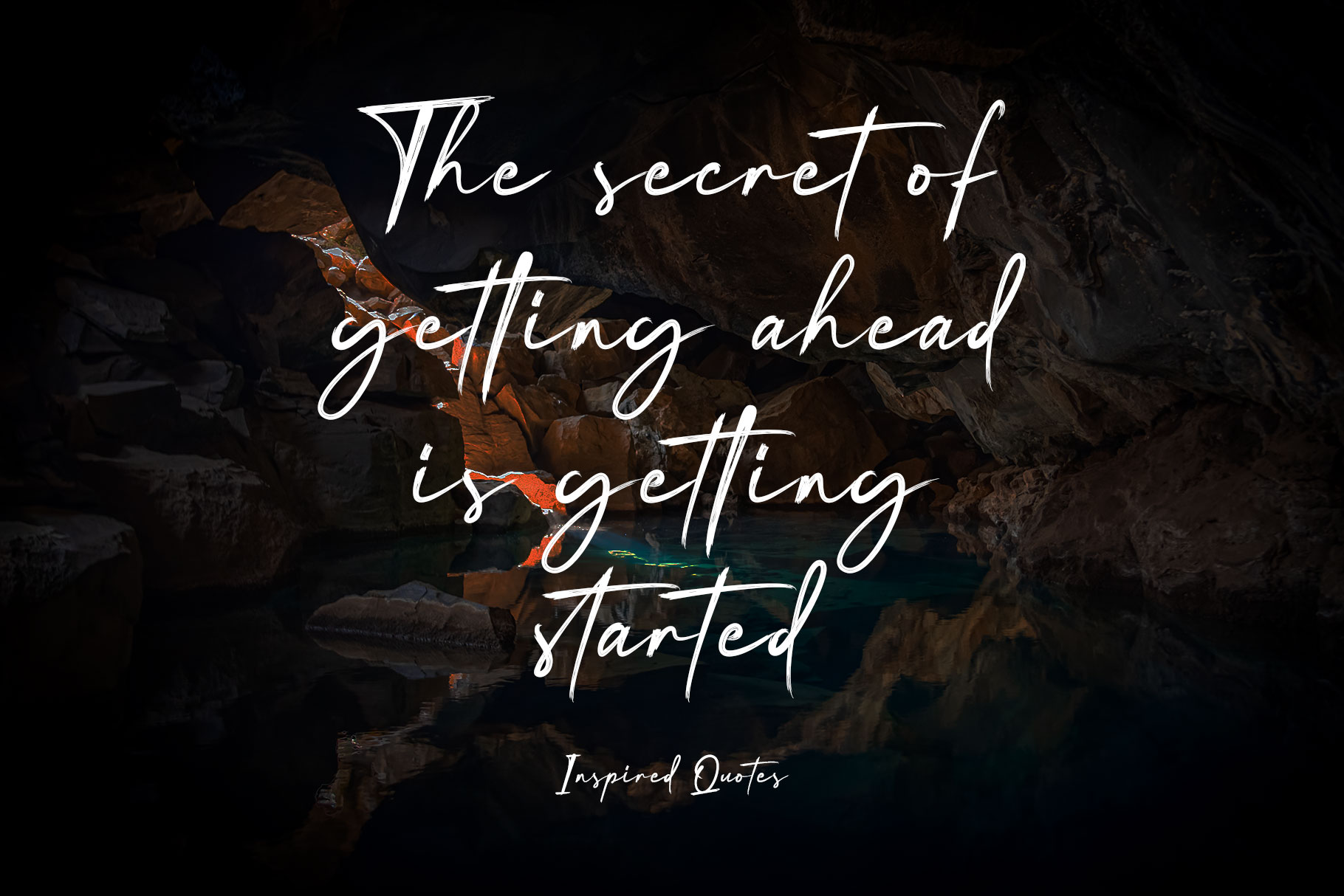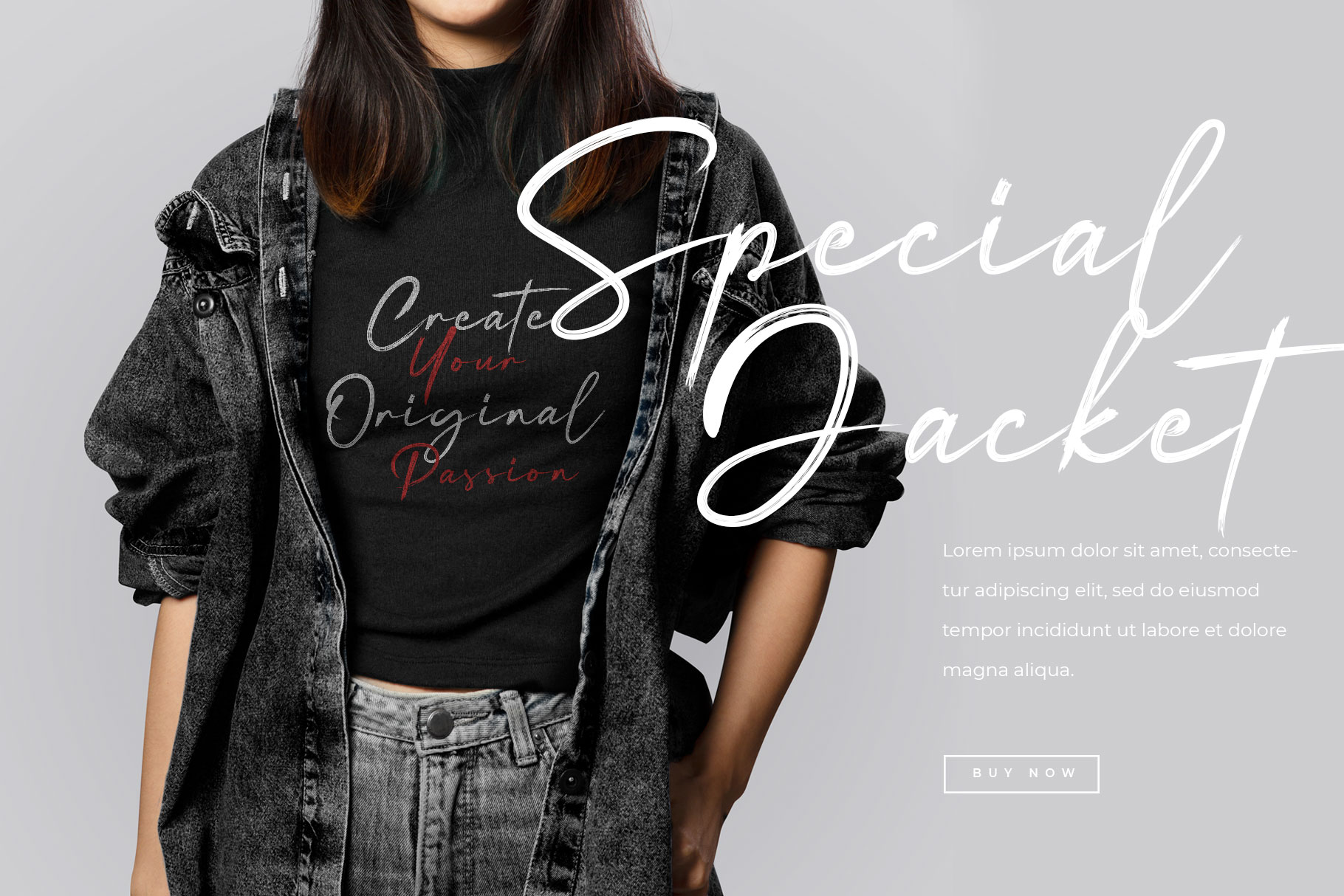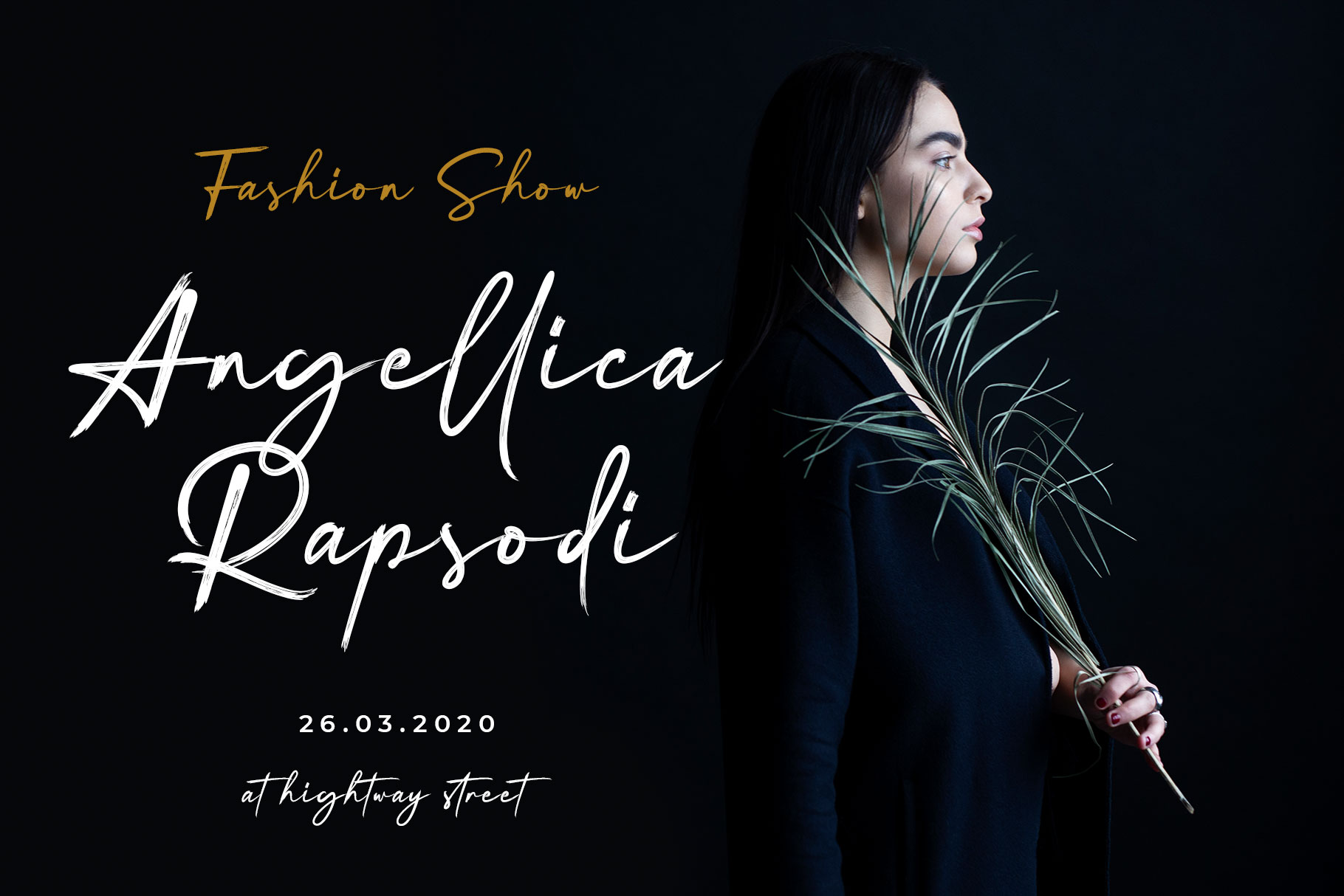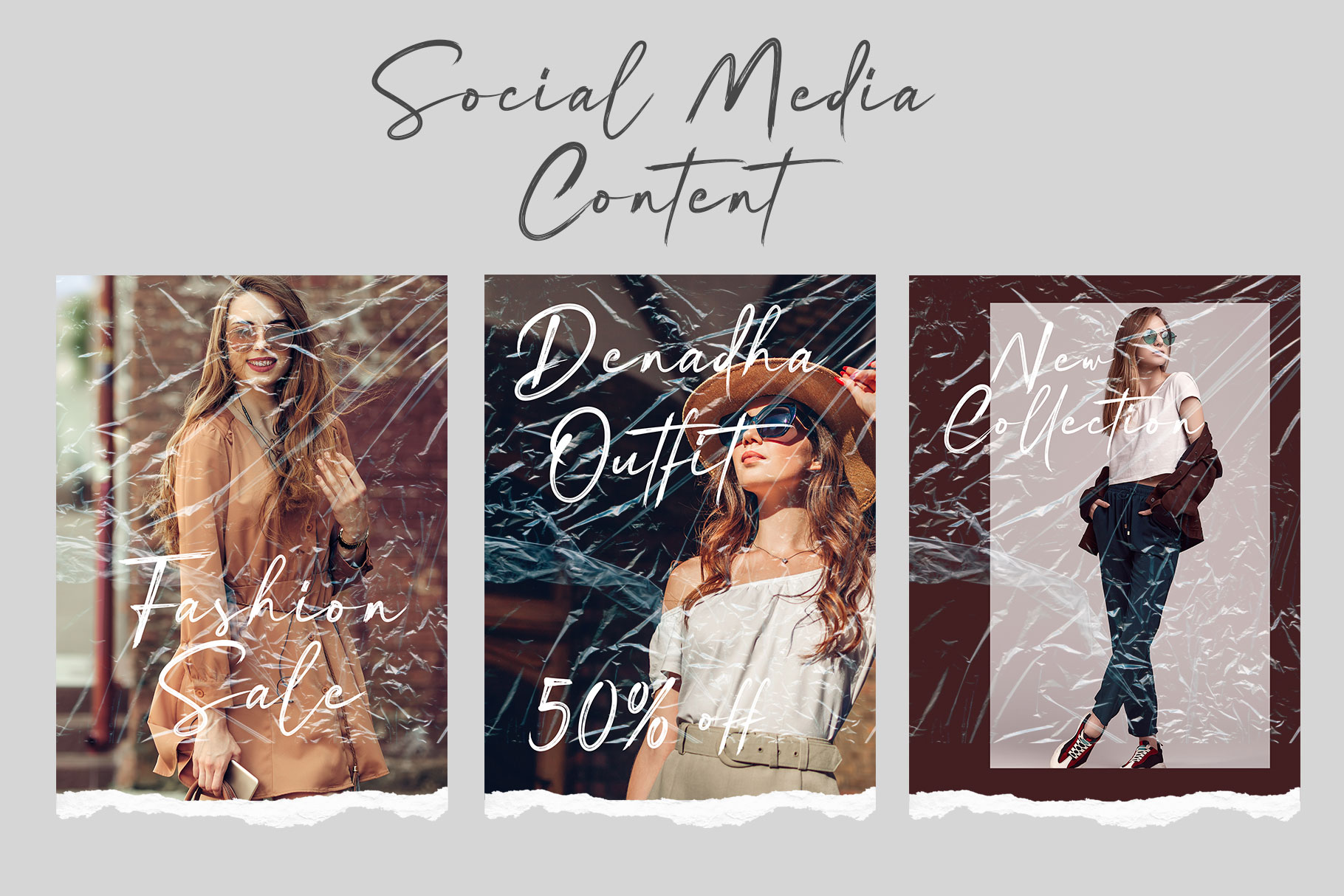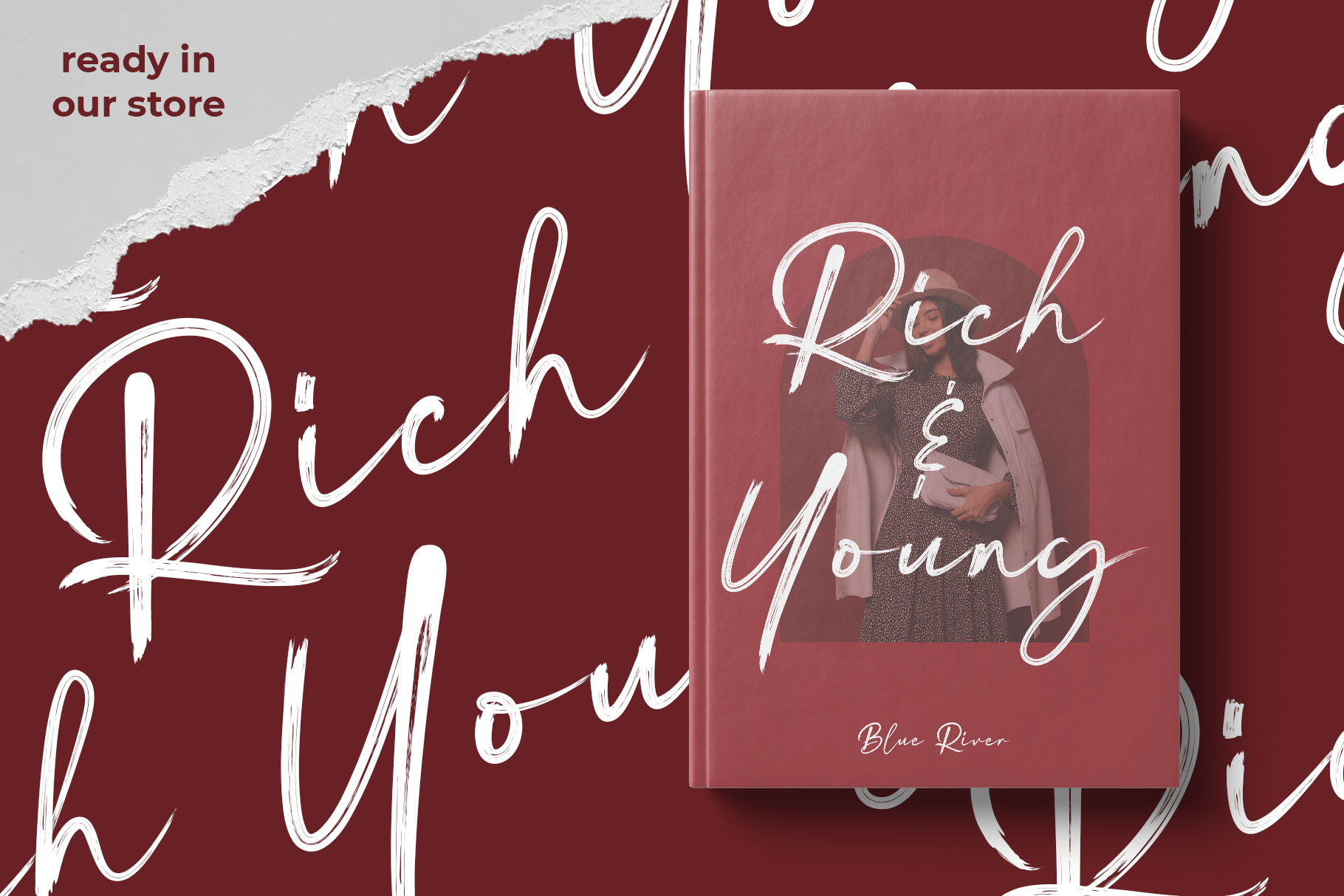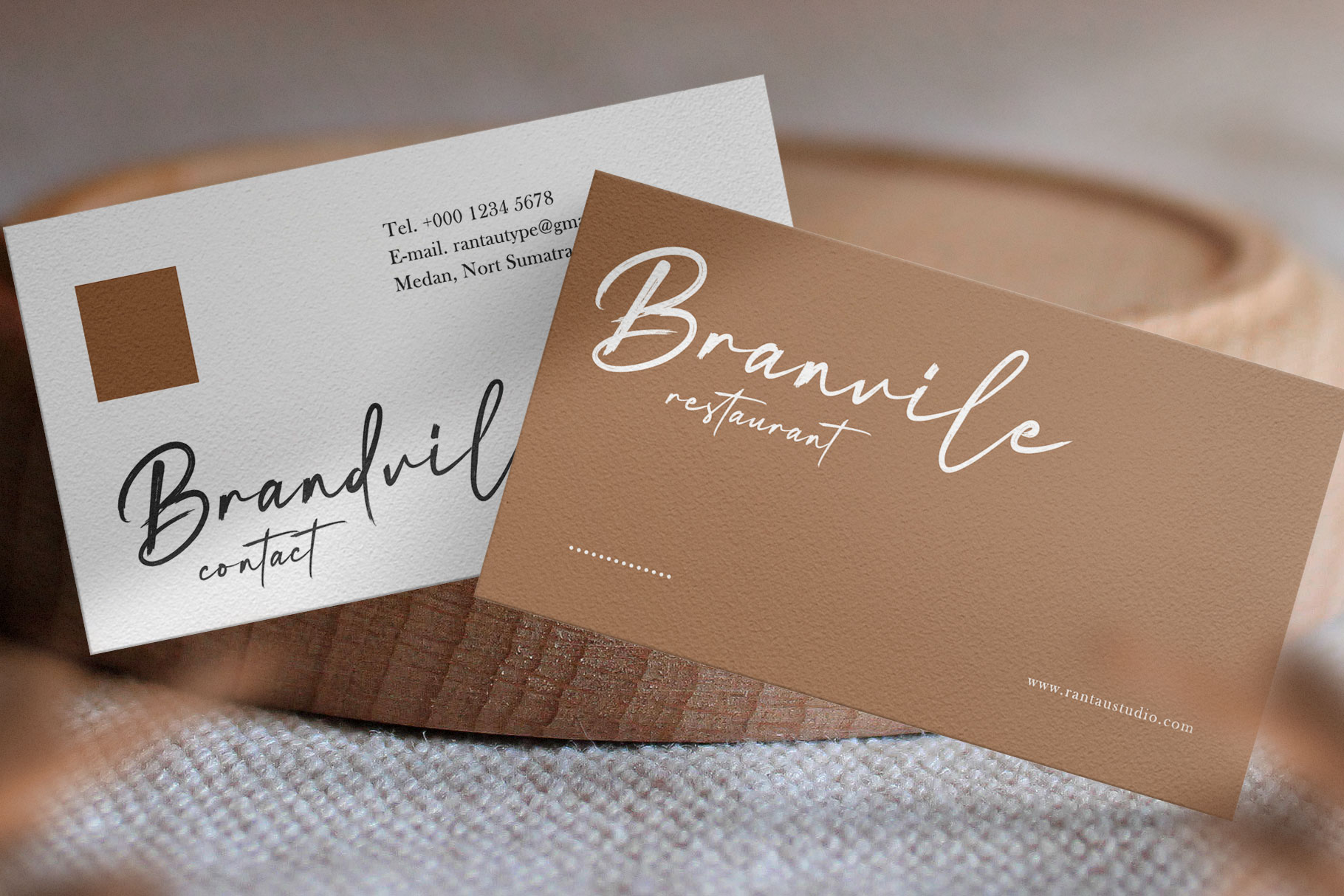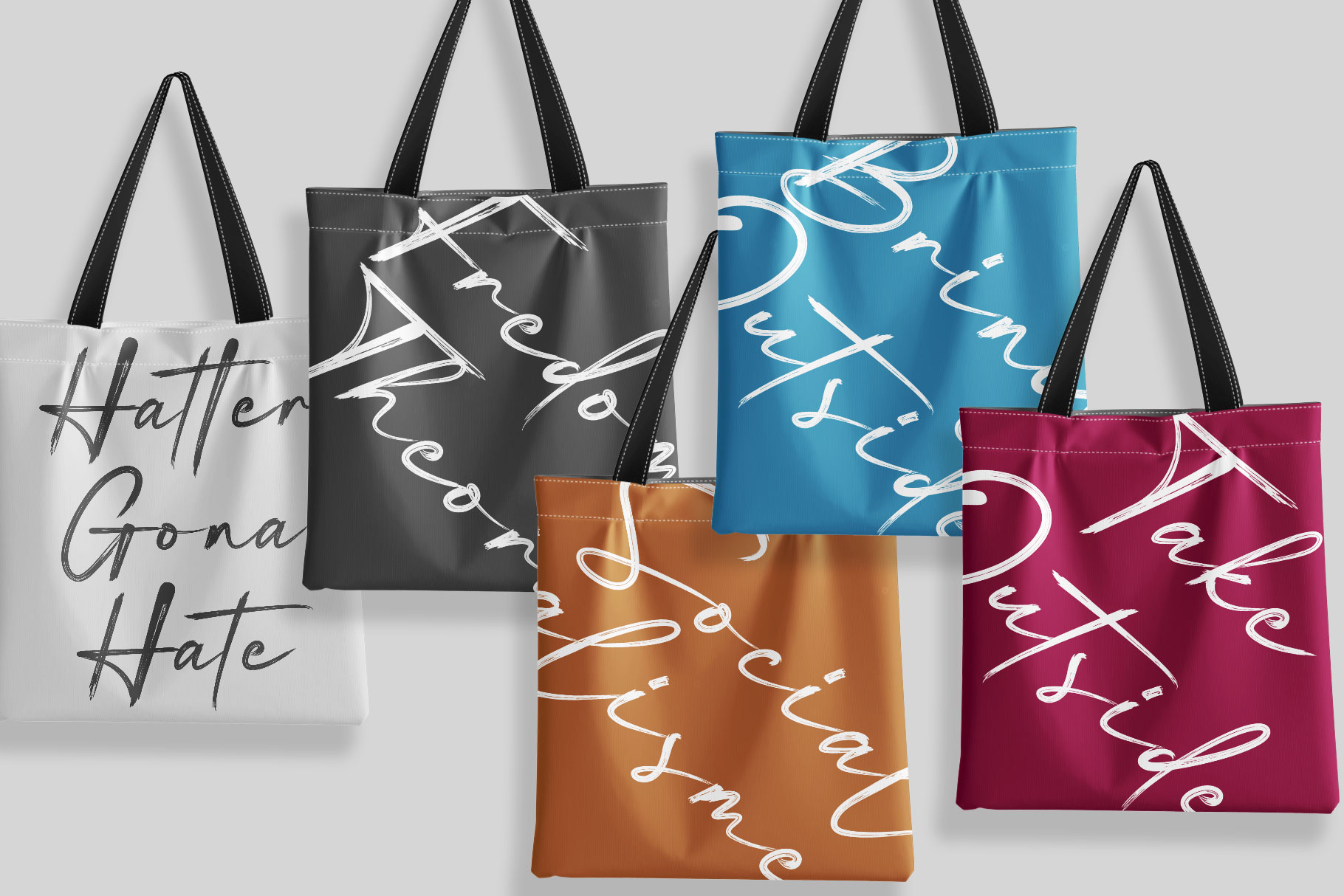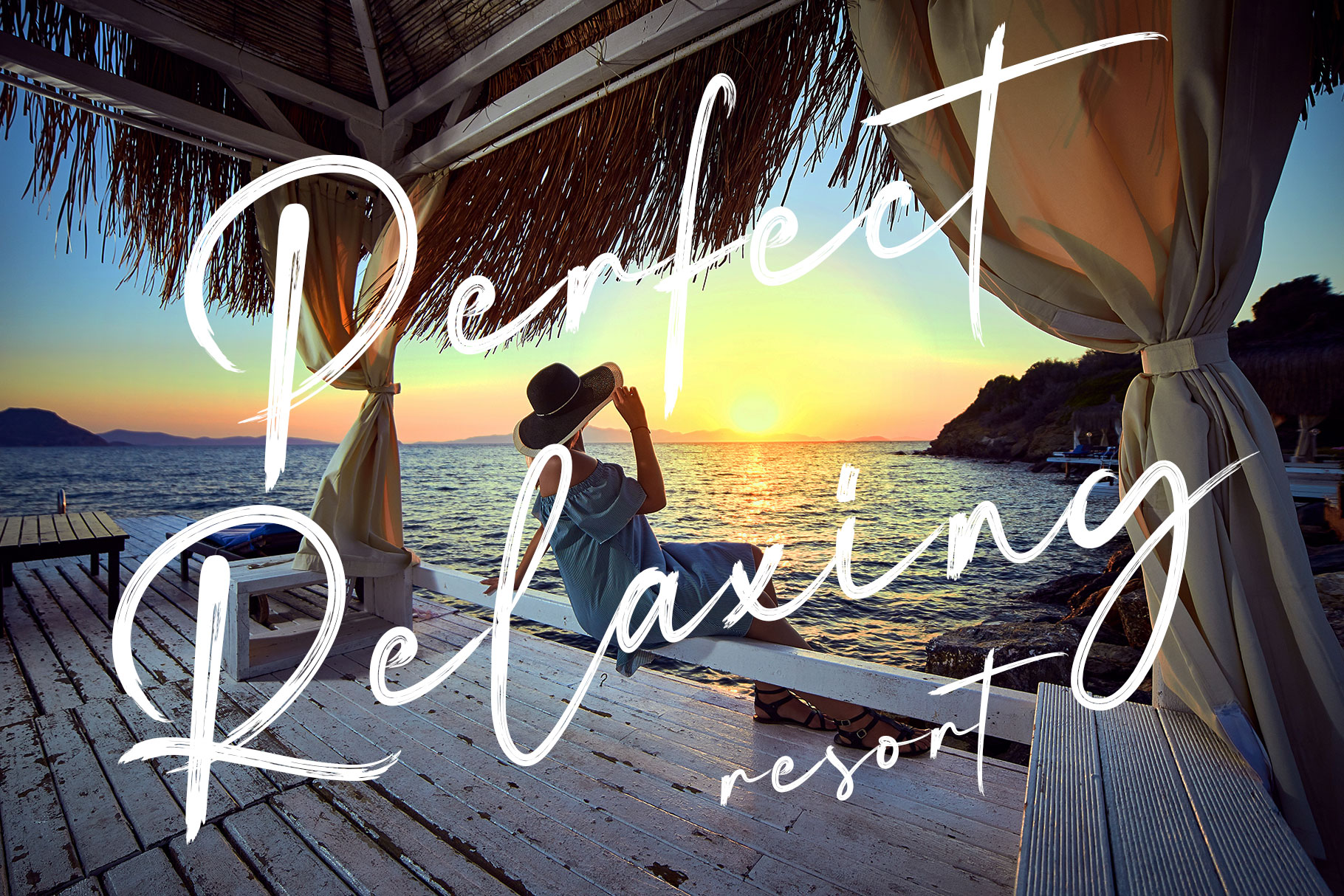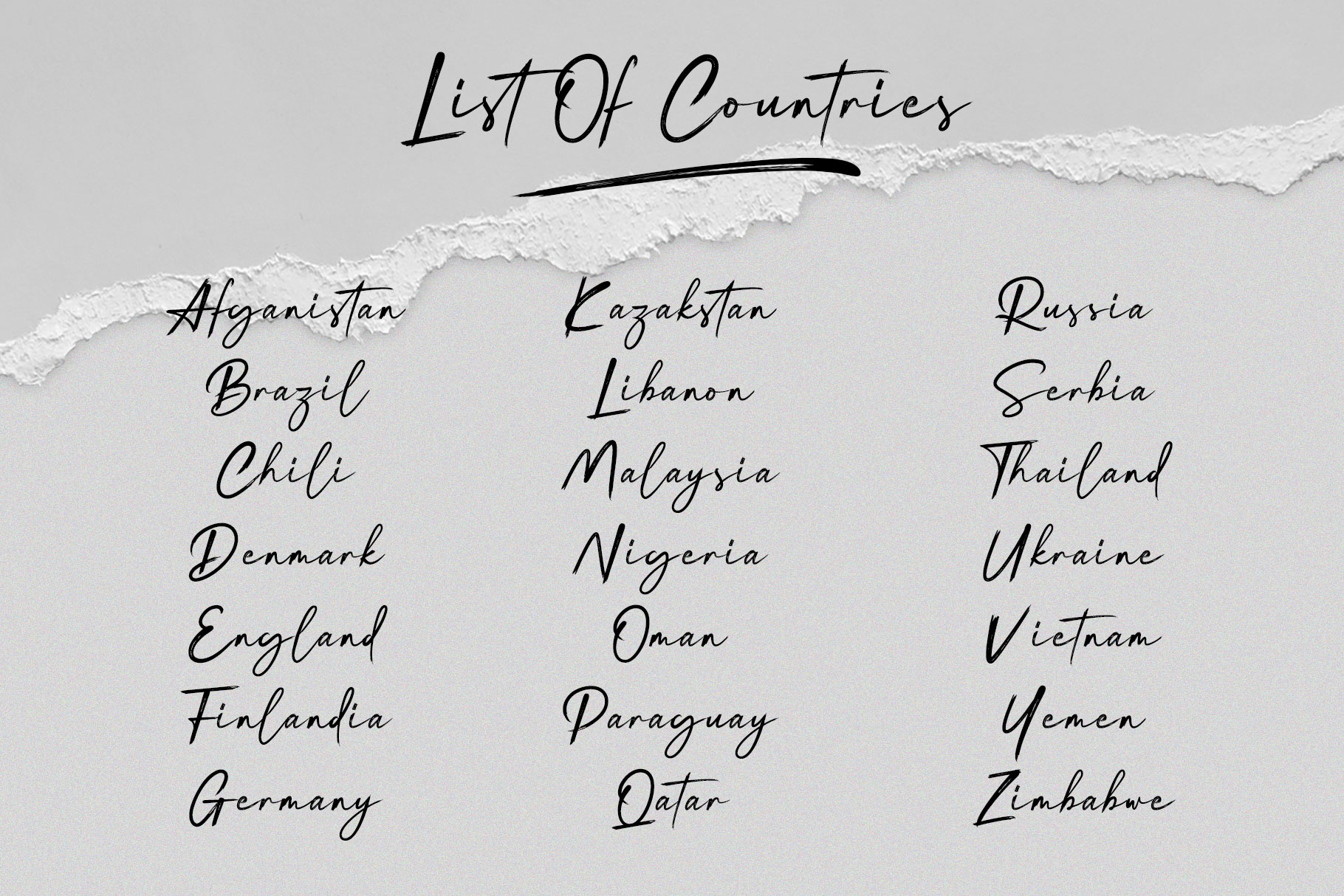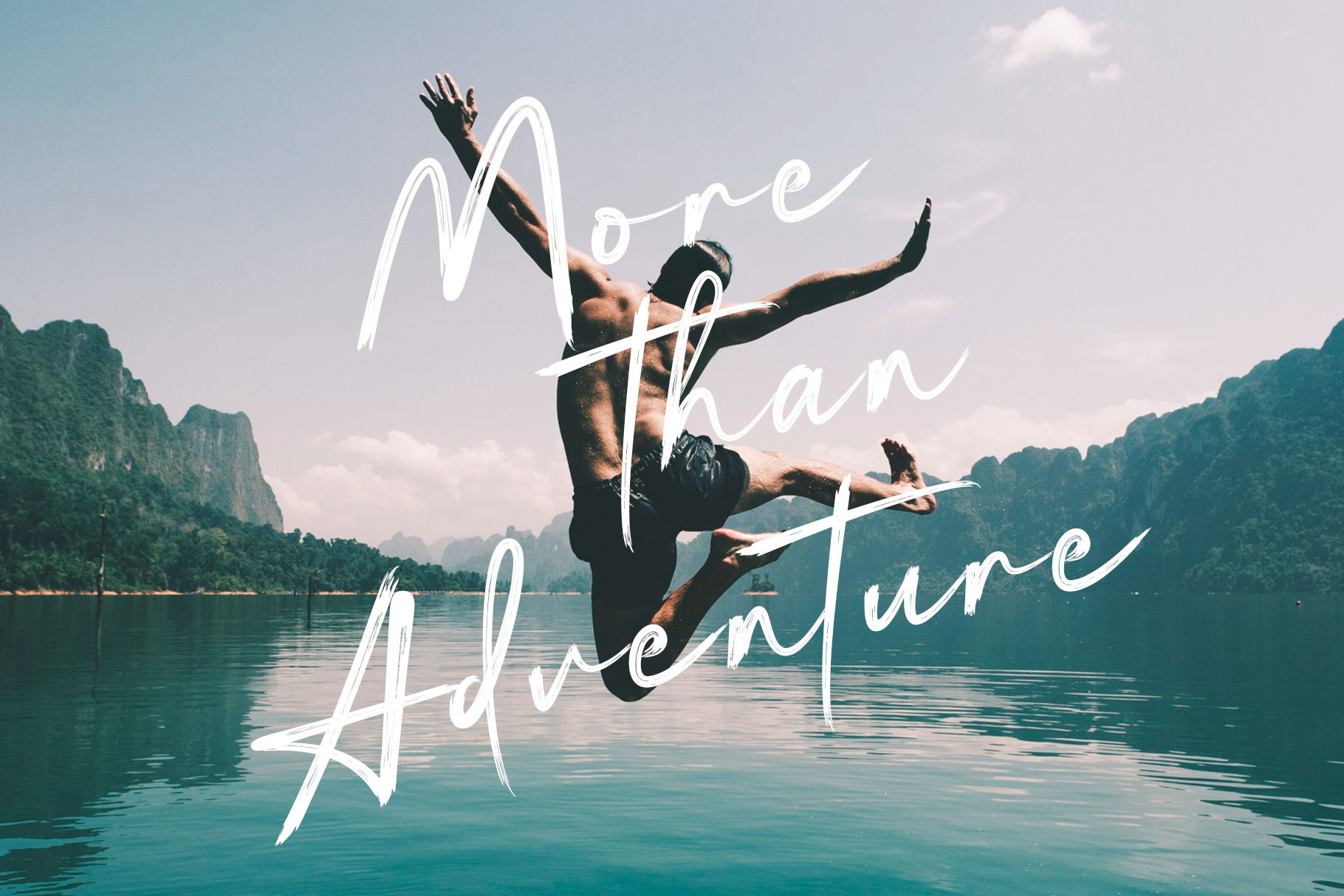
Blue River Brush script font
Blue river is stylish brush font which can be interpreted professional. we keep this font looks modern, readable, stylish,  catchy and easy to use.  Blue River brush script is the great choice for watermark on photography, signature or signature logo design, quotes, album cover, magazine, business card and many other design project. Blue River Script here to make your work to high level!!!
• Ligature and Swashes